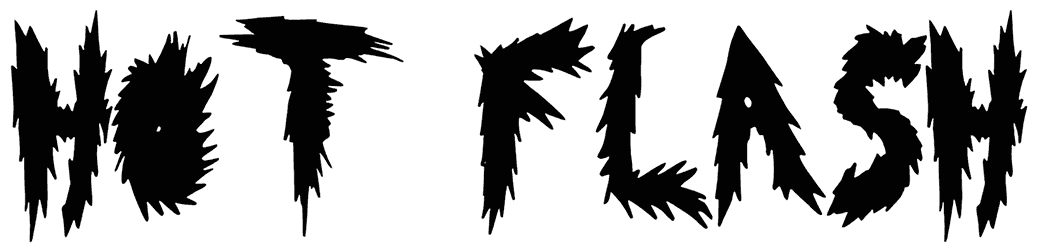
Hot Flash Font
Never underestimate the unbelievable ability of a marvelous all-caps horror font, the same as the Hot Flash, in boosting the quality of your editorial projects. Since it comes with chunky letters and sharp edges, it can help you to share a sense of jauntiness, grunge, eeriness, or vitality with the audience and grab their attention for your artwork.